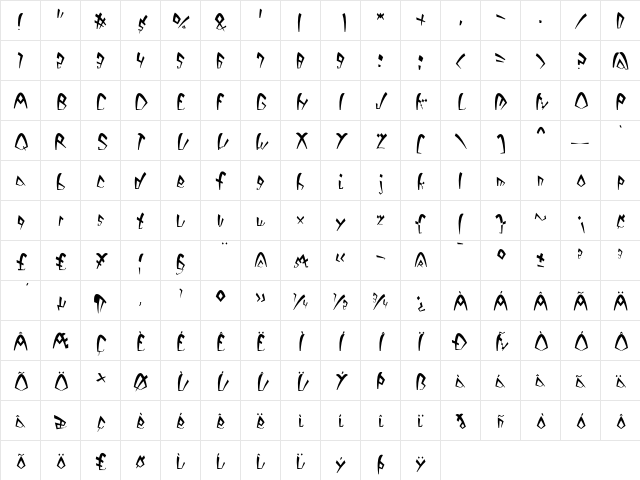
Dack One
Design Context for Dack Typeface
Dack is a composed and adaptable typeface that performs quietly and consistently across a wide range of design contexts.